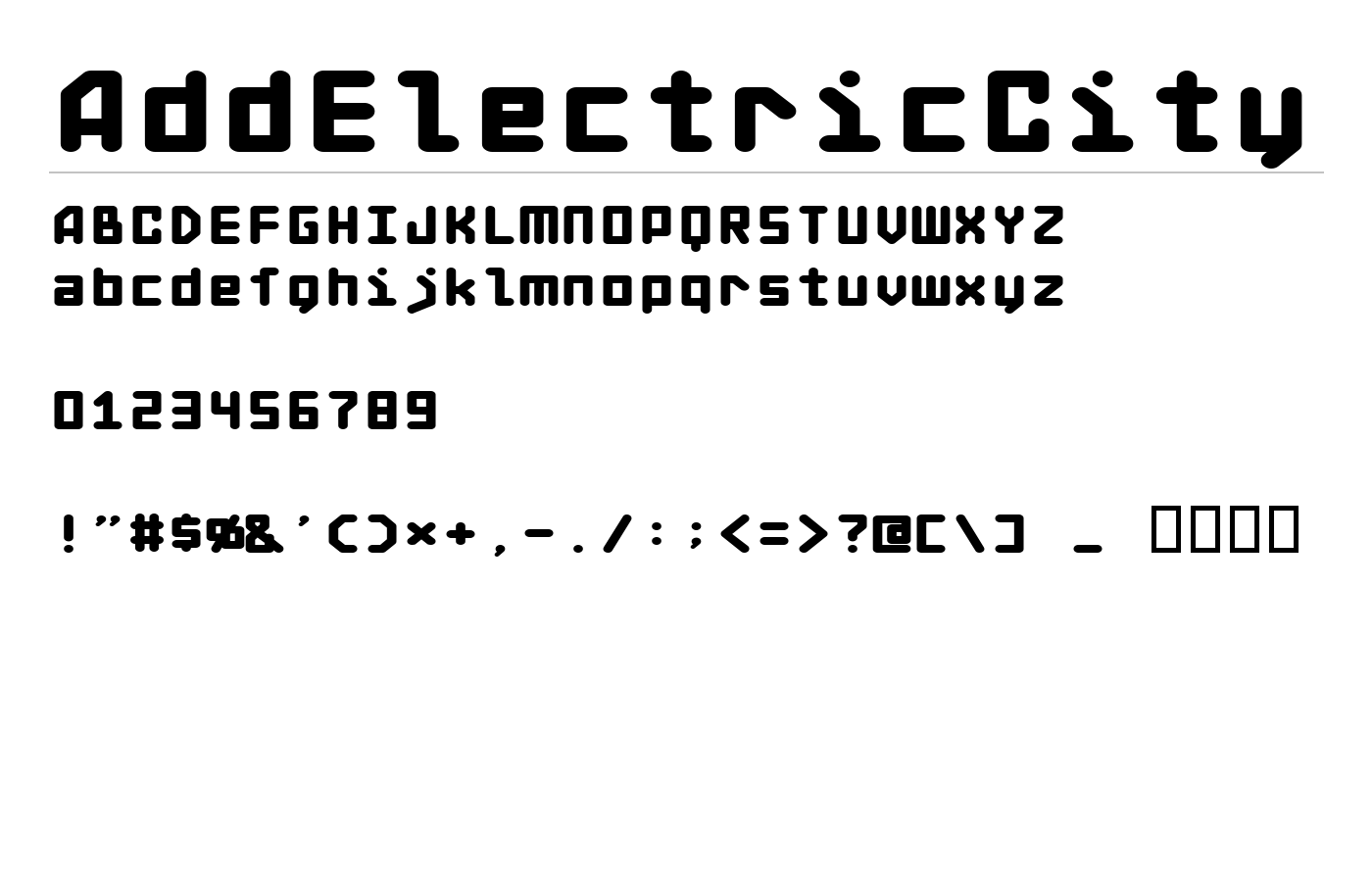
AddElectricCity is a bold, geometric sans serif font with a futuristic and tech-inspired character, featuring blunt edges and unique angular details that create a strong, industrial feel. Its consistent stroke weight and condensed letterforms make it eye-catching and ideal for headlines, logos, and branding in industries like technology, gaming, or urban culture. This font stands out for modern, dynamic designs that want to convey energy and innovation.
AddElectricCity Font
About AddElectricCity Font